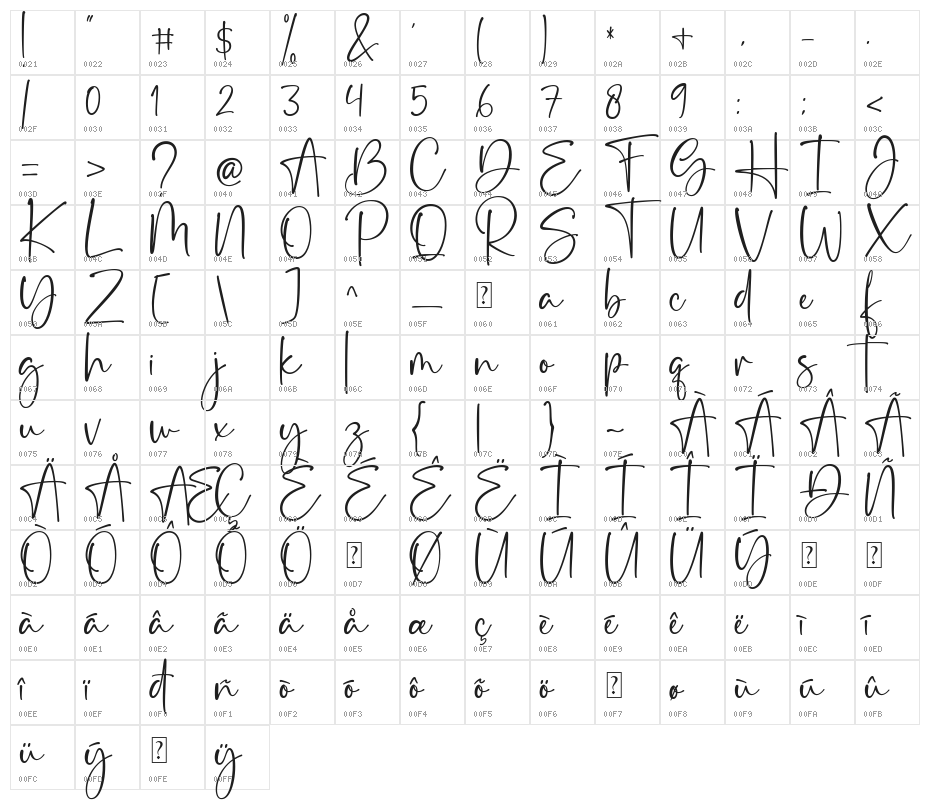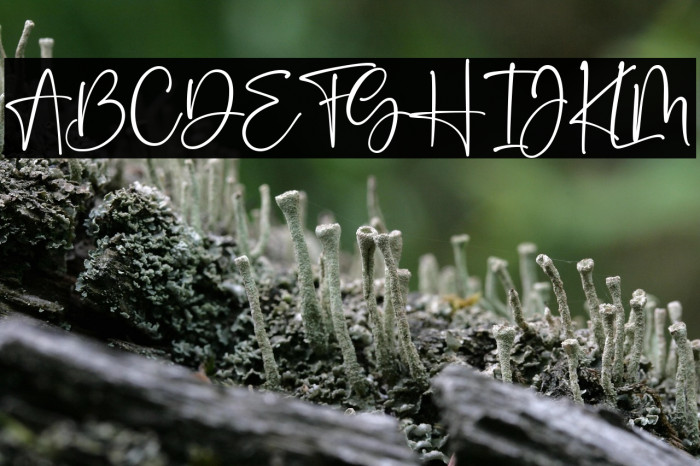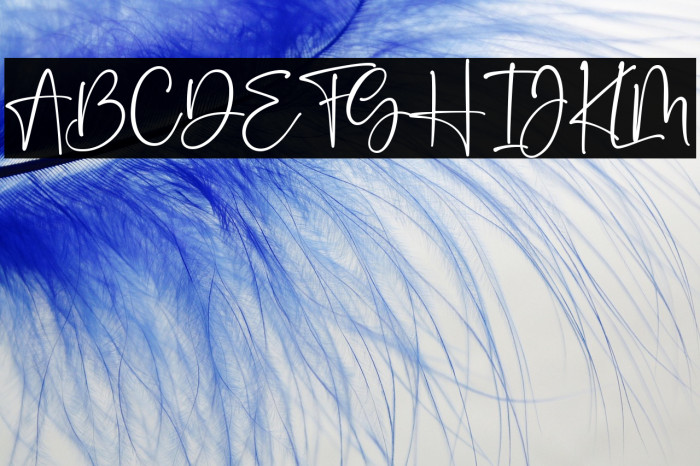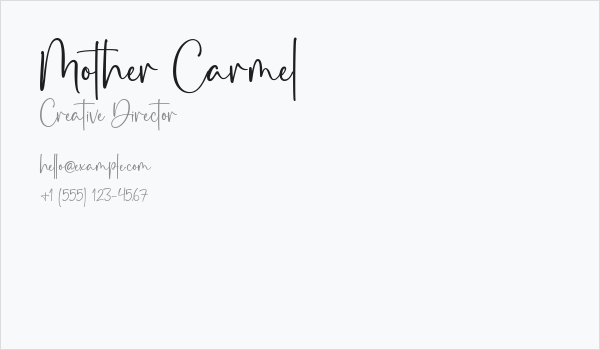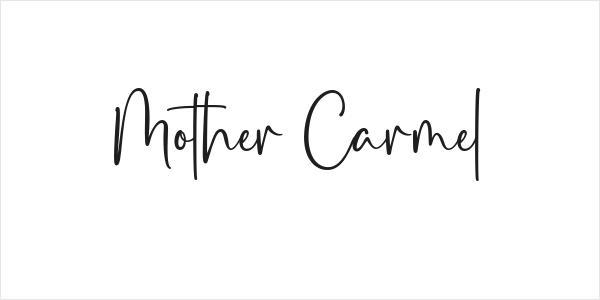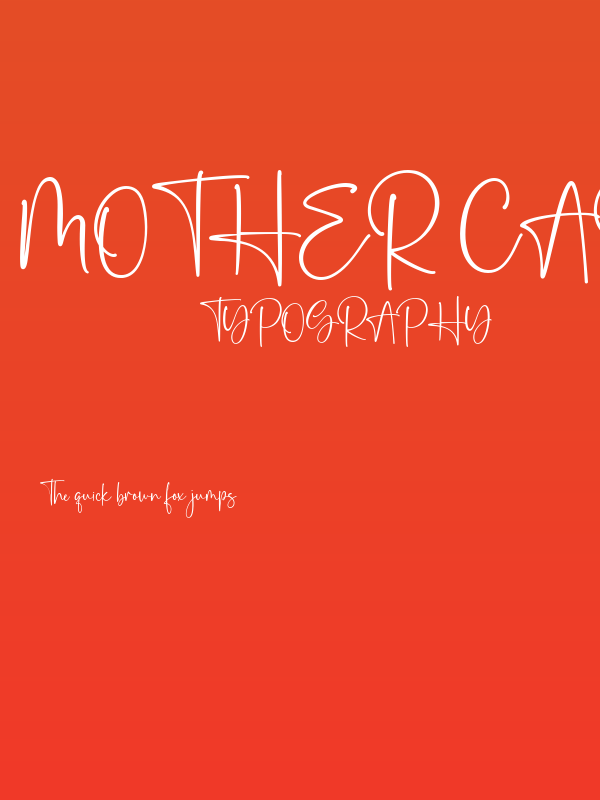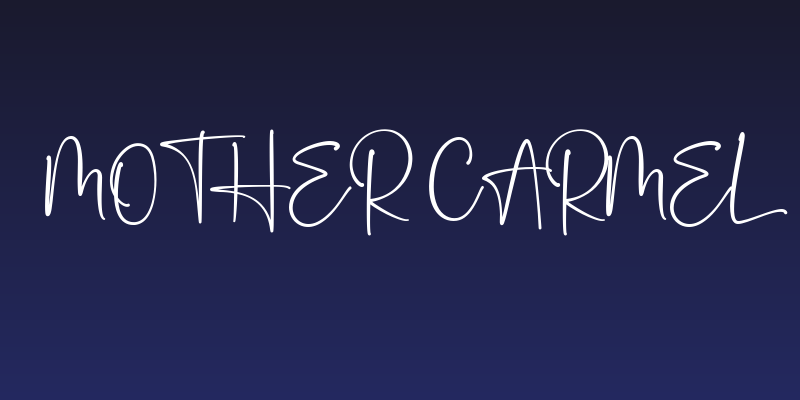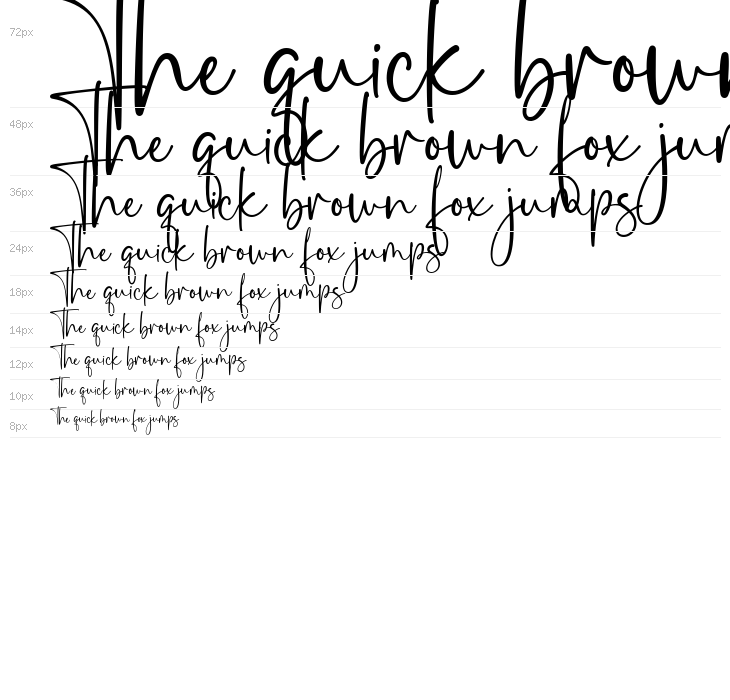
Mother Carmel Font
Mother Carmel Description
This font features a playful and energetic handwritten style, characterized by its flowing, cursive-like strokes. The uppercase letters are tall and slightly narrow, with a whimsical flair that adds a touch of personality. The lowercase letters maintain a consistent flow, with some letters extending below the baseline, enhancing its casual and approachable appearance. Numbers are clear and easy to read, while special characters retain the same lively style. The overall design is dynamic and expressive, making it suitable for projects that require a personal touch.